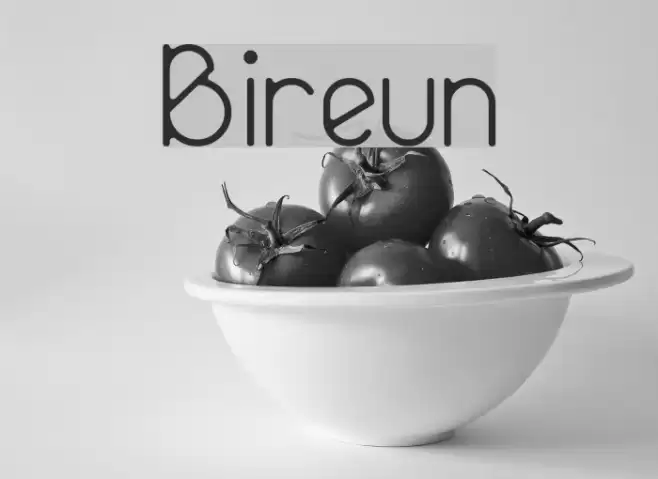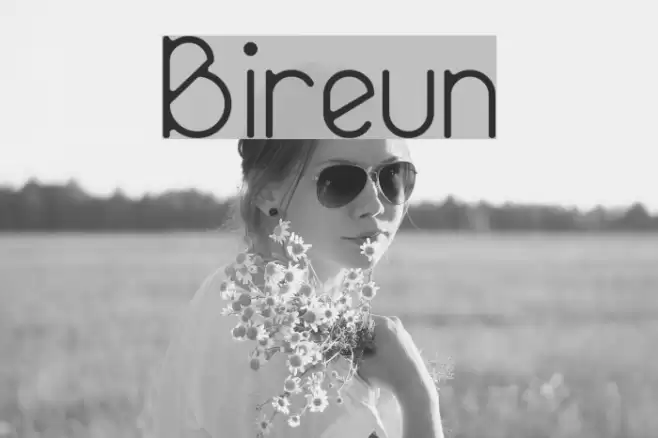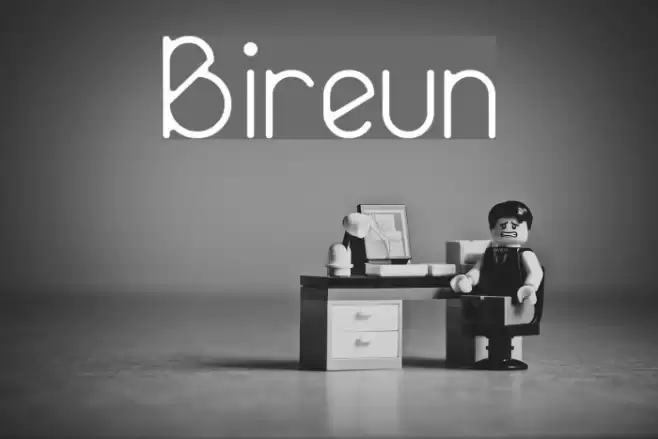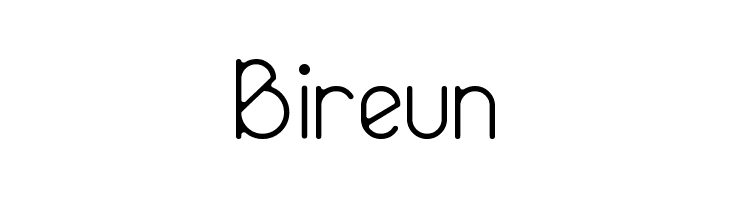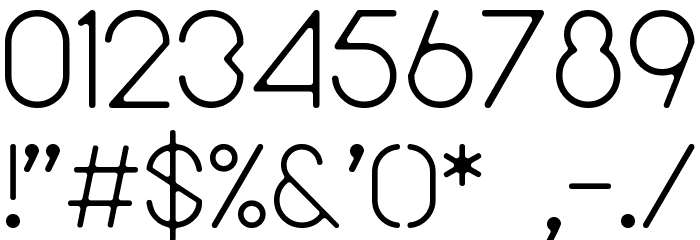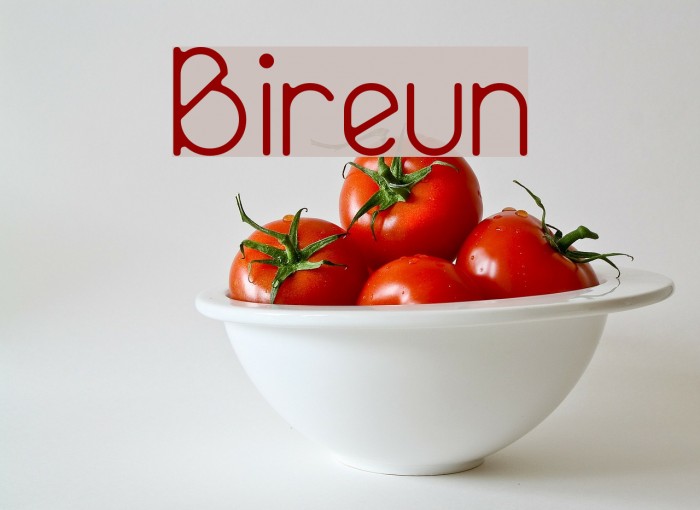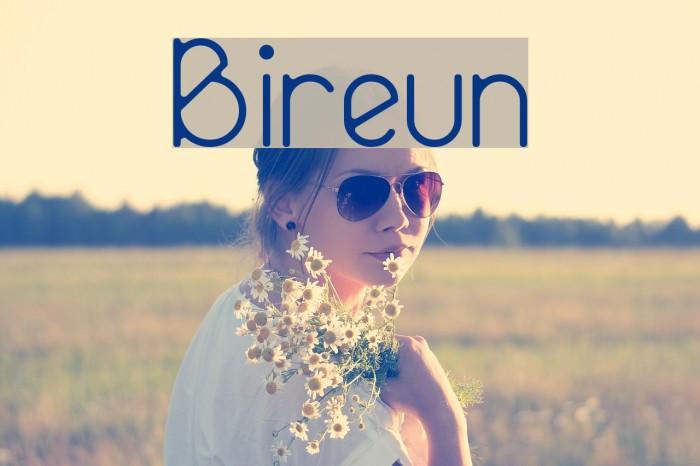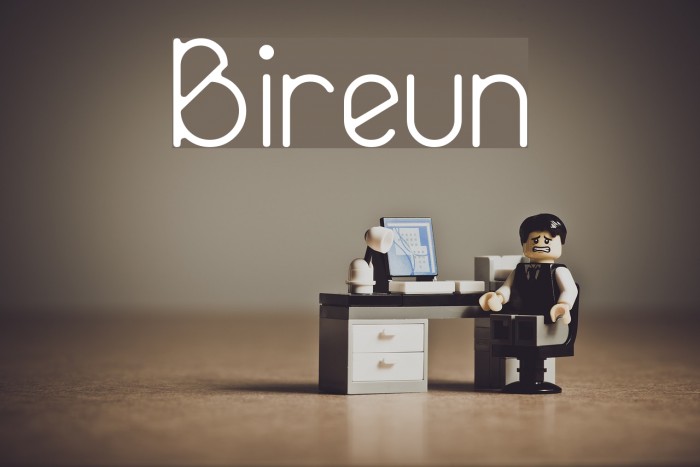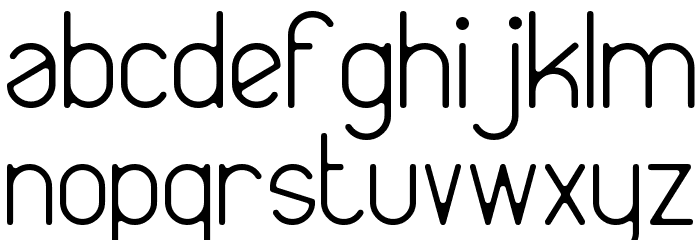
Bireun Font
Bireun Description
This font features a clean and modern design with rounded edges and a geometric structure. The characters are uniform in width, giving it a monospaced appearance, yet they maintain a playful and approachable feel. The uppercase and lowercase letters are well-balanced, with a consistent stroke width that provides a harmonious look. The numerals and special characters are designed to match the overall style, ensuring readability and aesthetic appeal. This font is versatile, suitable for both digital and print media, and can be used to convey a sense of modernity and simplicity.
A modern, rounded font with geometric structure and uniform width from Uncategorized fonts.